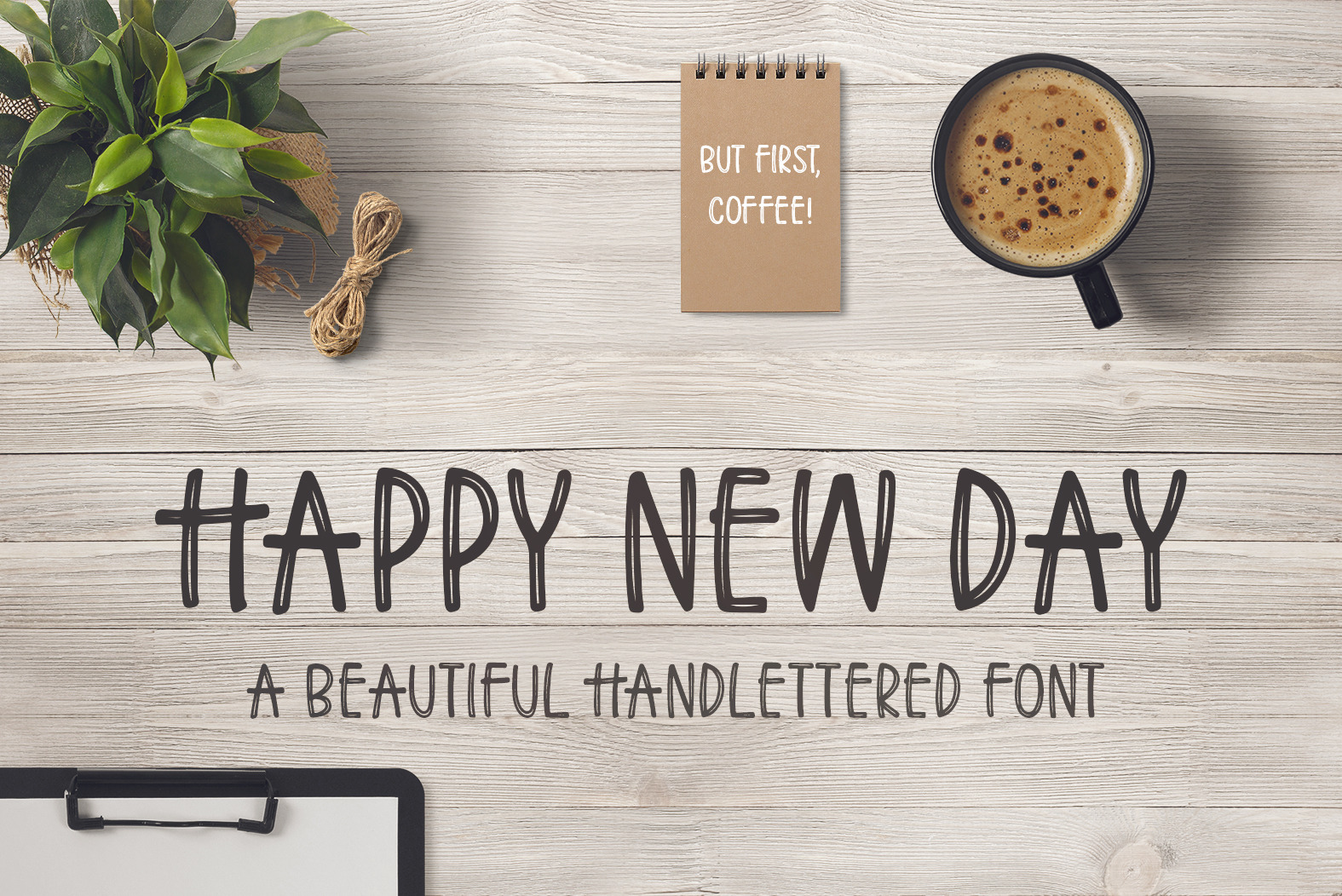
Happy New Day Font
Introducing: Happy New Day! A unique hand lettered double line font. Since a lot of you liked and have asked for this style of hand lettering on my Instagram page, I decided to make a font out of it :)
Happy New Day is the perfect choice for signage, shop windows, branding projects, handwritten quotes, homeware designs, invitations, product packaging, restaurant menus - or simply as a modern & stylish text overlay to any background image.
The uppercase letters are the same as the lowercase letters, so you can use either. Happy New Day includes ALL symbols and punctuation marks - so it's a fully featured font that you can use to write anything :)
Multilingual support is included for all Central European languages. You can test the characters in the font previewer below to make sure they work as expected.